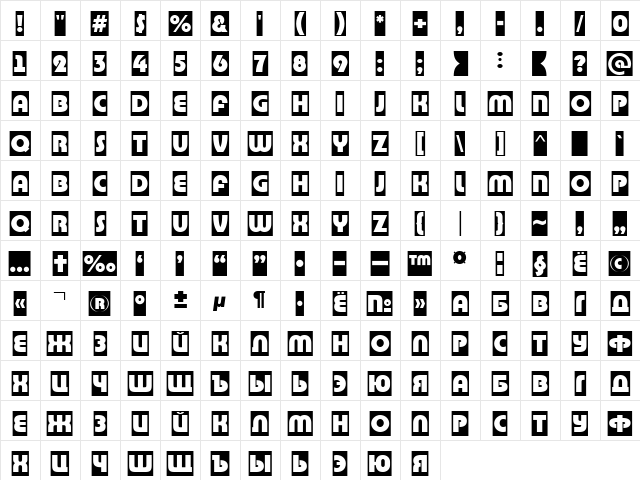
a_BighausTitulCm Regular
Design Context for a_BighausTitulCm
a_BighausTitulCm is a composed and adaptable typeface that performs quietly and consistently across a wide range of design contexts.
Pro Tip: Use a_BighausTitulCm in both headline and body roles to test its range before committing to a single application.